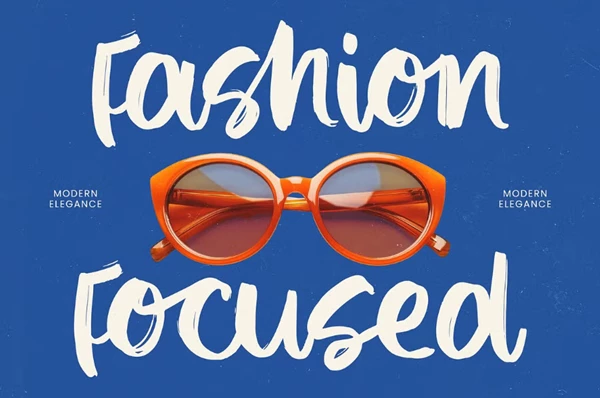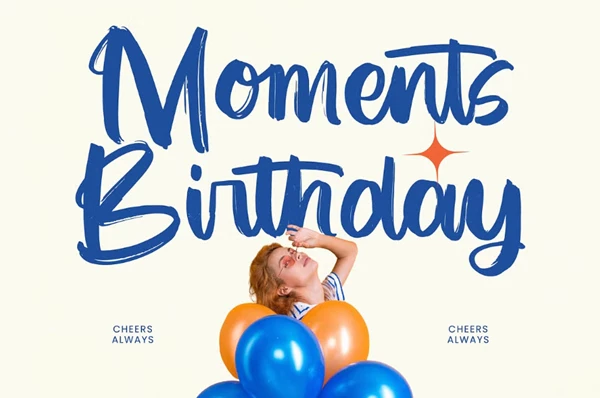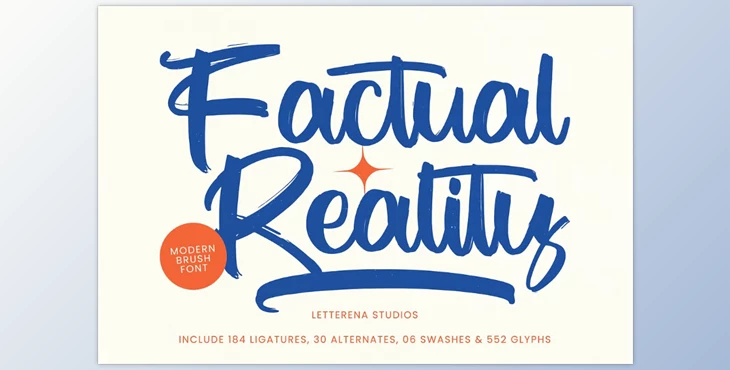
Factual Reality Modern Brush Font:
Factual Reality Modern Brush Font, crafted by Letterena, elevates every design with its sleek mix of luxury and artistic flair. Whether you’re designing a boutique logo, elegant packaging, or charming home décor, this script font adapts beautifully. It shines on t-shirts, posters, and book covers, lending a polished air to quotes and invitations for weddings or special occasions.
Some great features of Factual Reality Modern Brush Font:
- 184 artistic ligatures, 30 interchangeable letters, 6 graceful swashes
- Complete uppercase and lowercase alphabet
- Stylish numerals included
- OpenType punctuation marks for polished text
- Multilingual support with accented characters
- Flexible ligatures and additional stylistic sets
"Factual Reality Modern Brush Font" Samples: